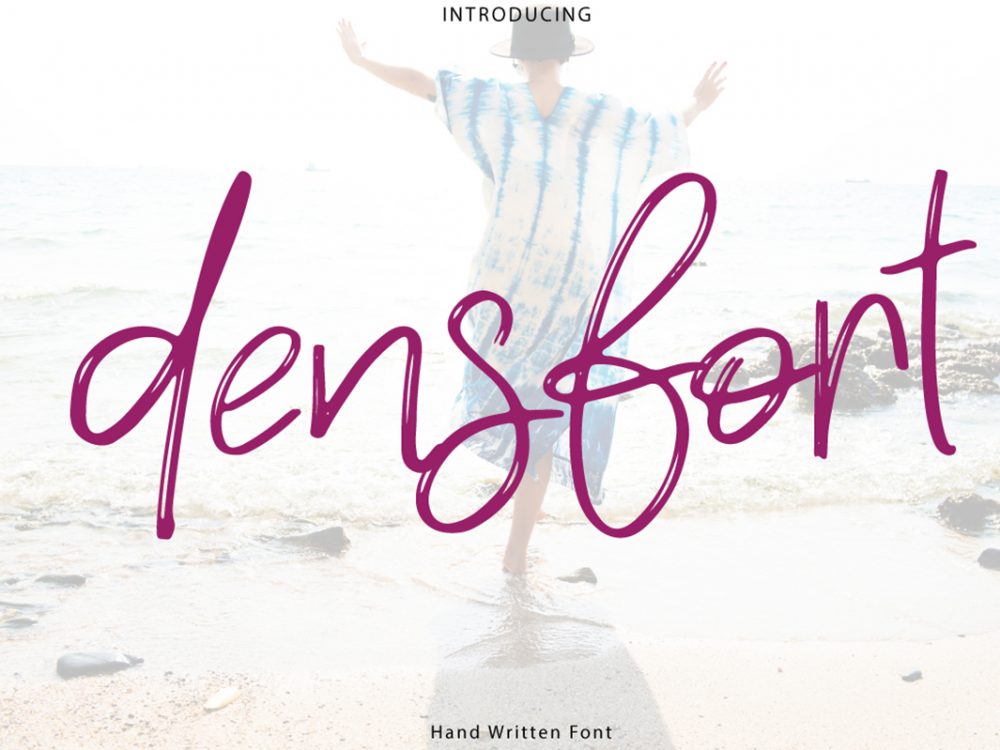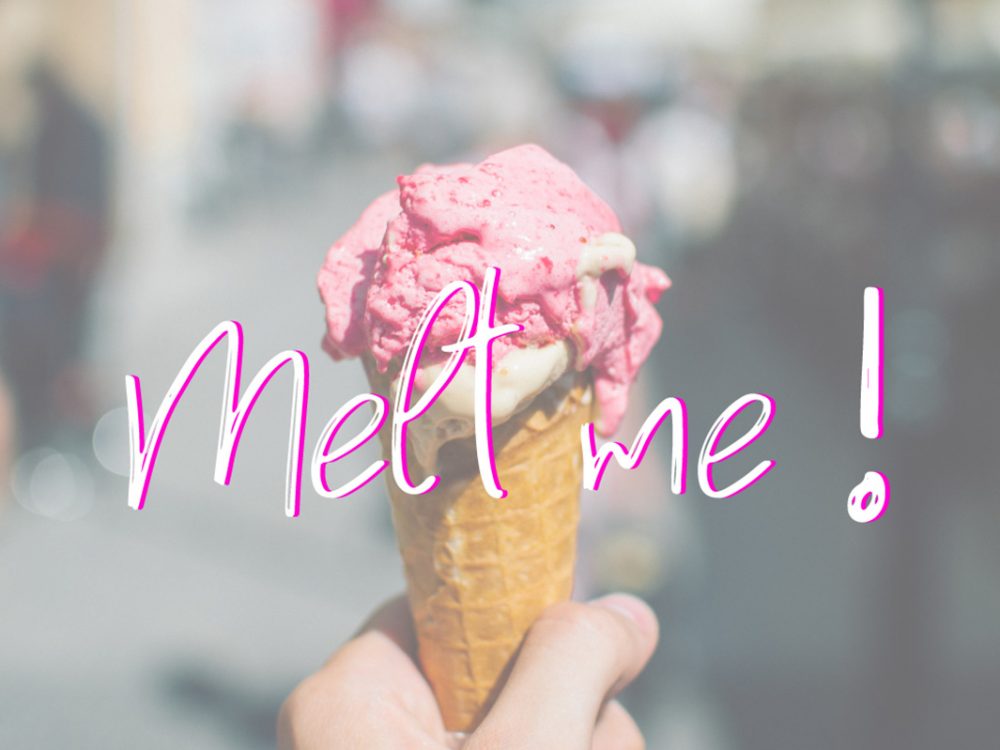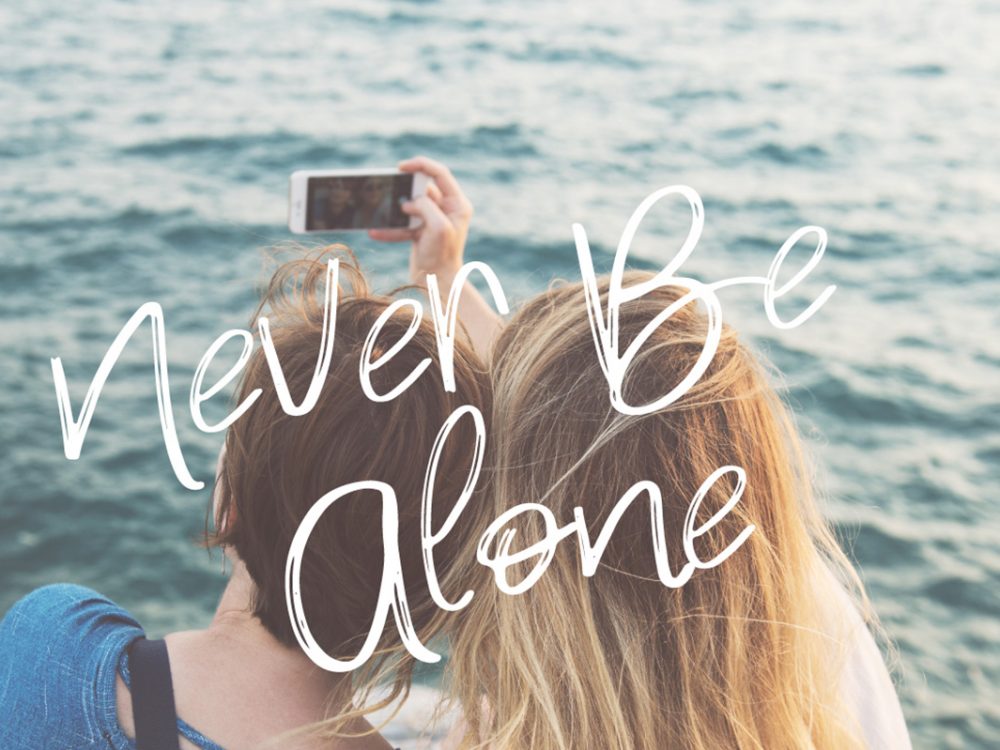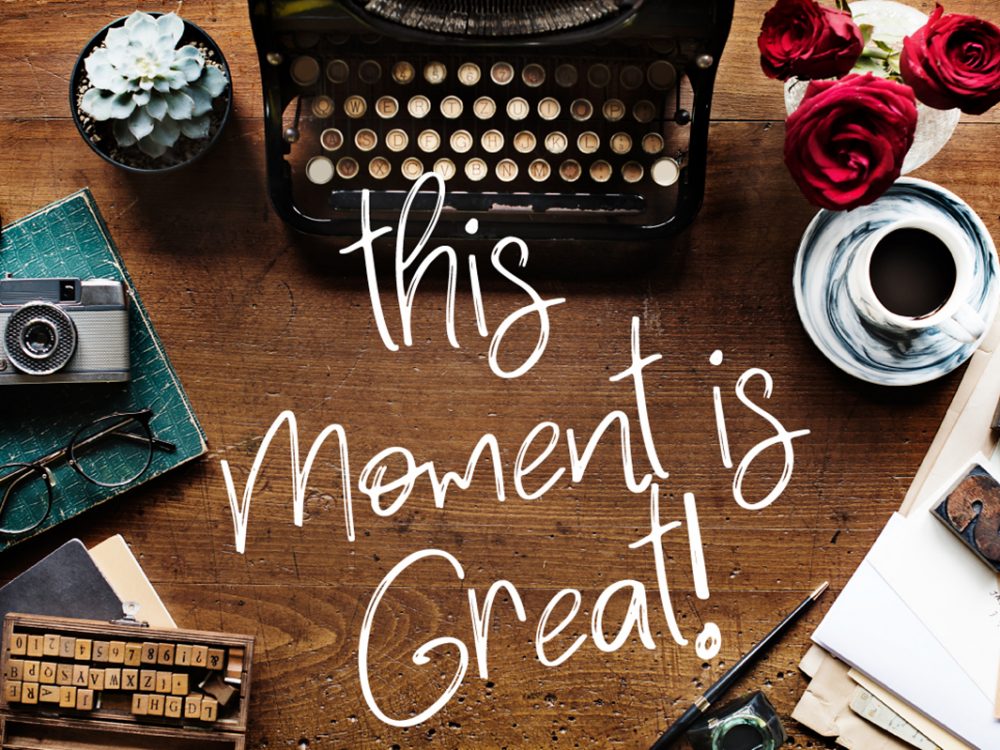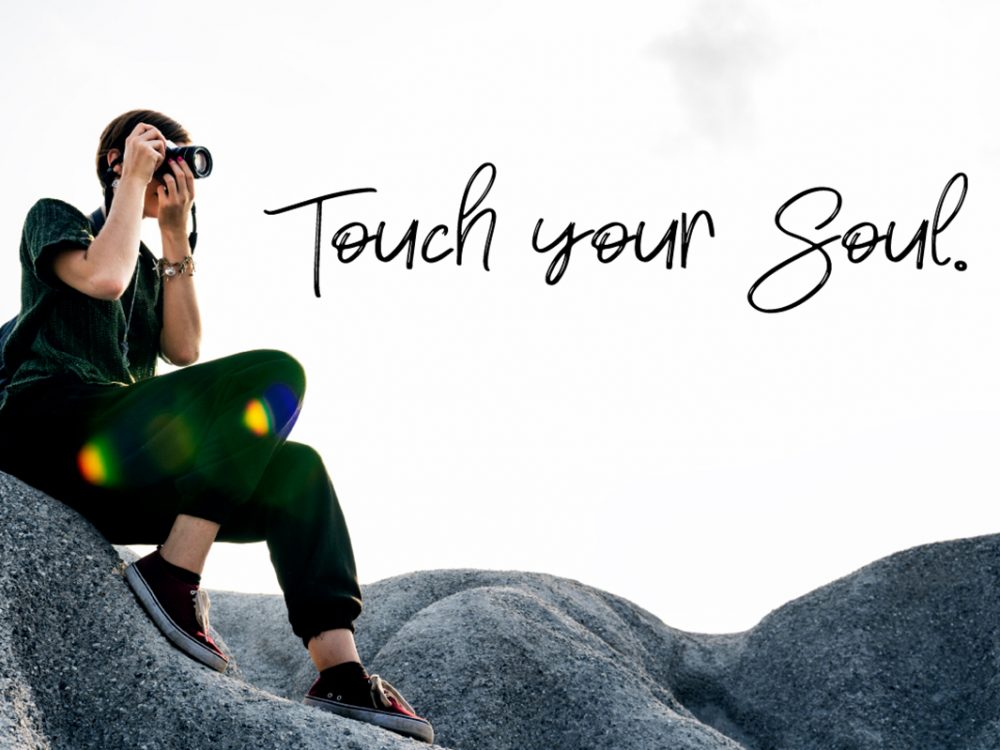
Densfort Free Font
Densfort Free Font is an interesting handwritten typeface that mimics the writing of a brush and compares favorably with a modern calligraphic typeface among other fonts. This font is very suitable for creating various projects that require a scripted handwritten font. Use this font to create memorable romantic posters, wedding invitations, greeting cards, branding, flyers, t-shirt and pillow prints, and more. If you like it don’t forget to check out the full version.